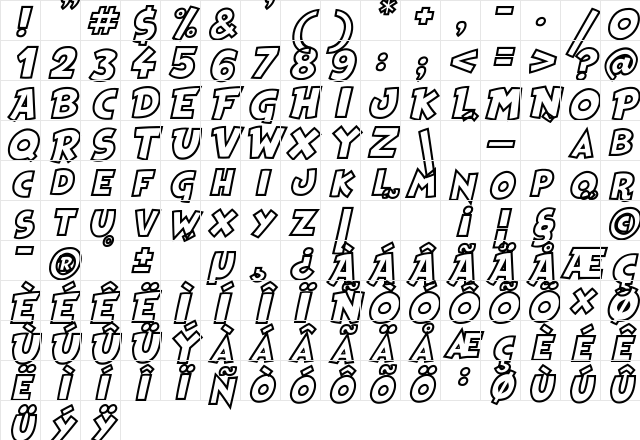
Heroes Legend Hollow Regular Free Font
Heroes Legend Hollow Regular
Designer: IMAGEX
Design Context for Heroes Legend Hollow
Heroes Legend Hollow is a composed and adaptable typeface that performs quietly and consistently across a wide range of design contexts.